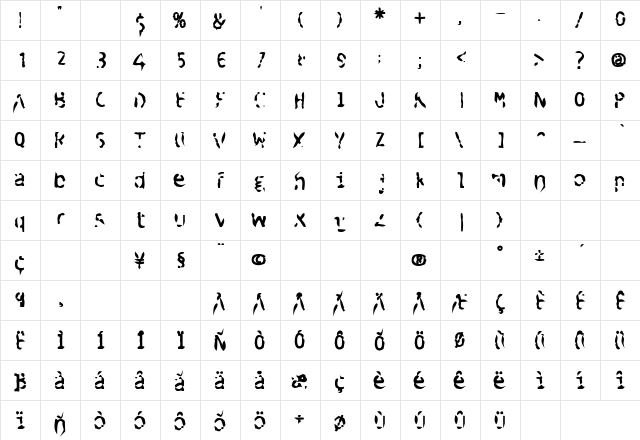
Blue Spent Bold
Design Context for Blue Spent Typeface
Blue Spent is a composed and adaptable typeface that performs quietly and consistently across a wide range of design contexts. Its bold stroke weight gives it real presence on the page.